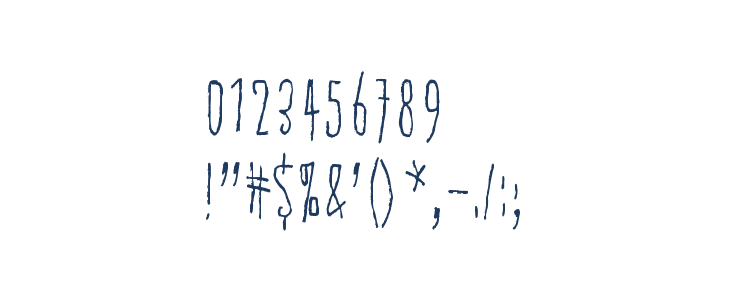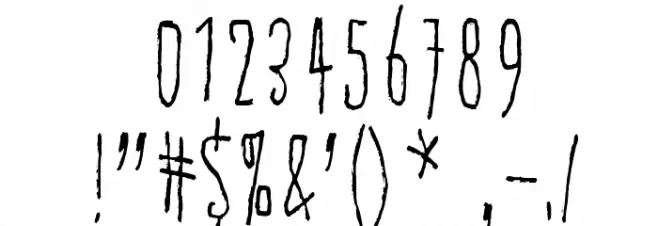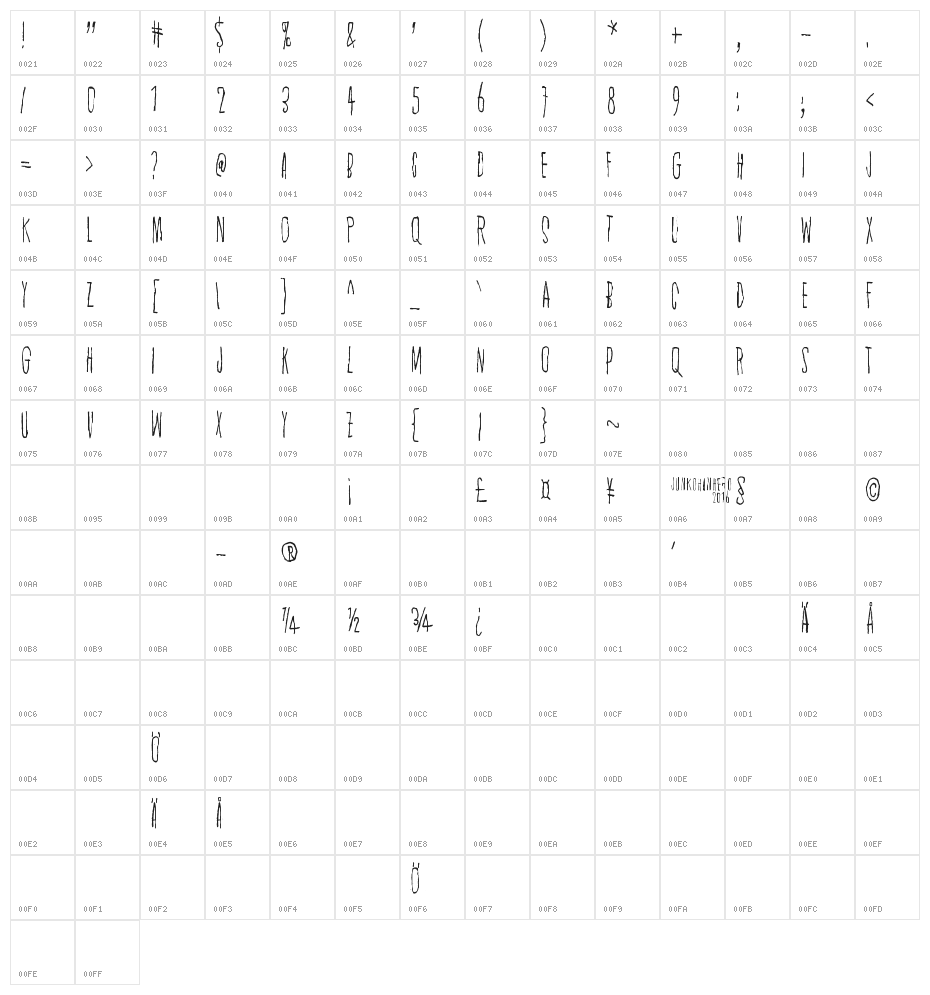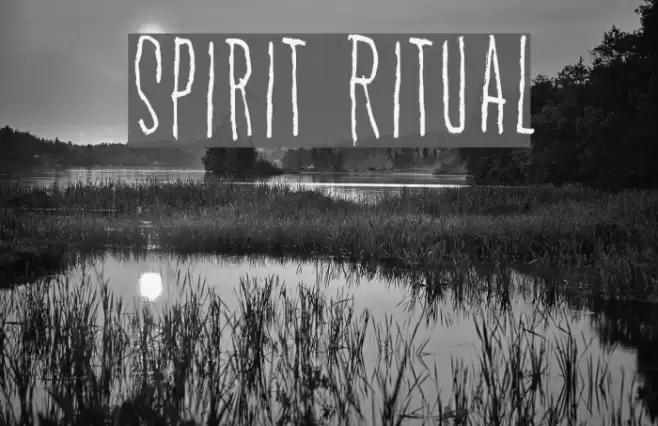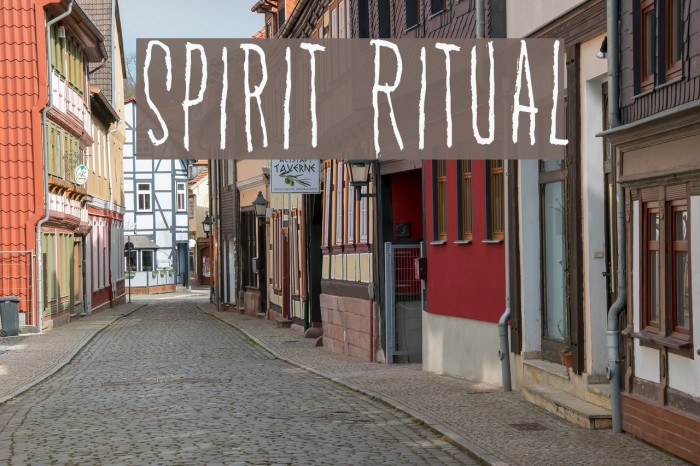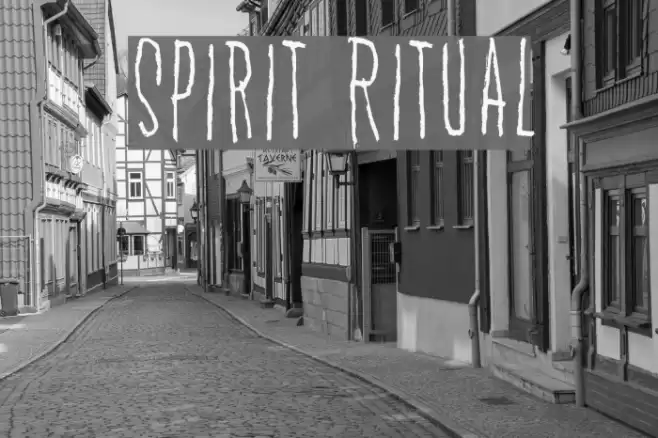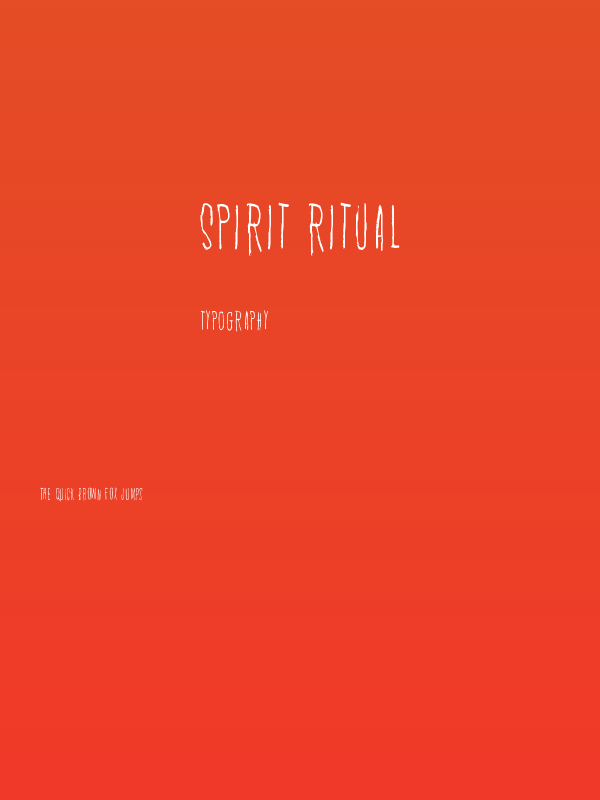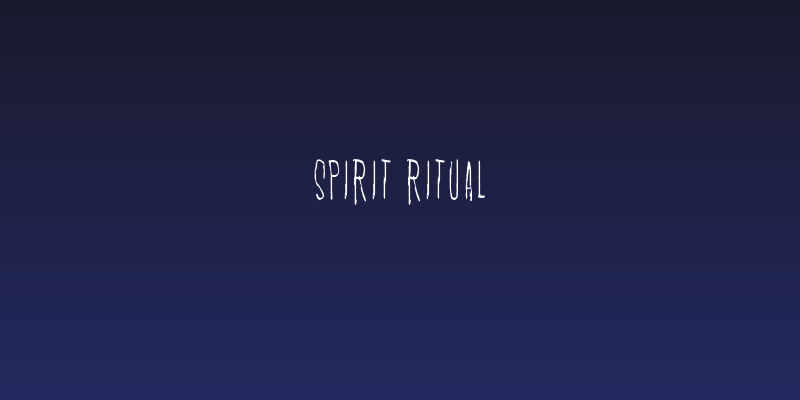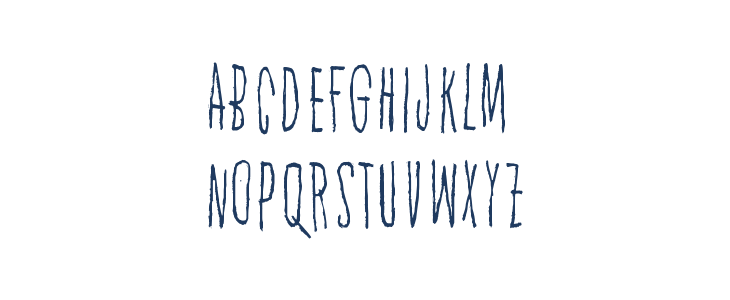
Spirit Ritual Font
Spirit Ritual Description
This font features a hand-drawn, rustic style with elongated, slightly irregular strokes that give it a unique, organic feel. The characters are tall and narrow, with a rough texture that suggests a handcrafted or vintage aesthetic. The uppercase and lowercase letters maintain a consistent height, adding to the font's cohesive appearance. Numbers and special characters follow the same stylistic cues, ensuring uniformity across all glyphs. This font's distinctive look makes it ideal for projects that require a touch of personality and charm.
Overall StyleVintage
Use CaseLogos, Posters, Invitations
Proposed ProjectsIdeal for branding, packaging, posters, and invitations that require a handcrafted or vintage touch.